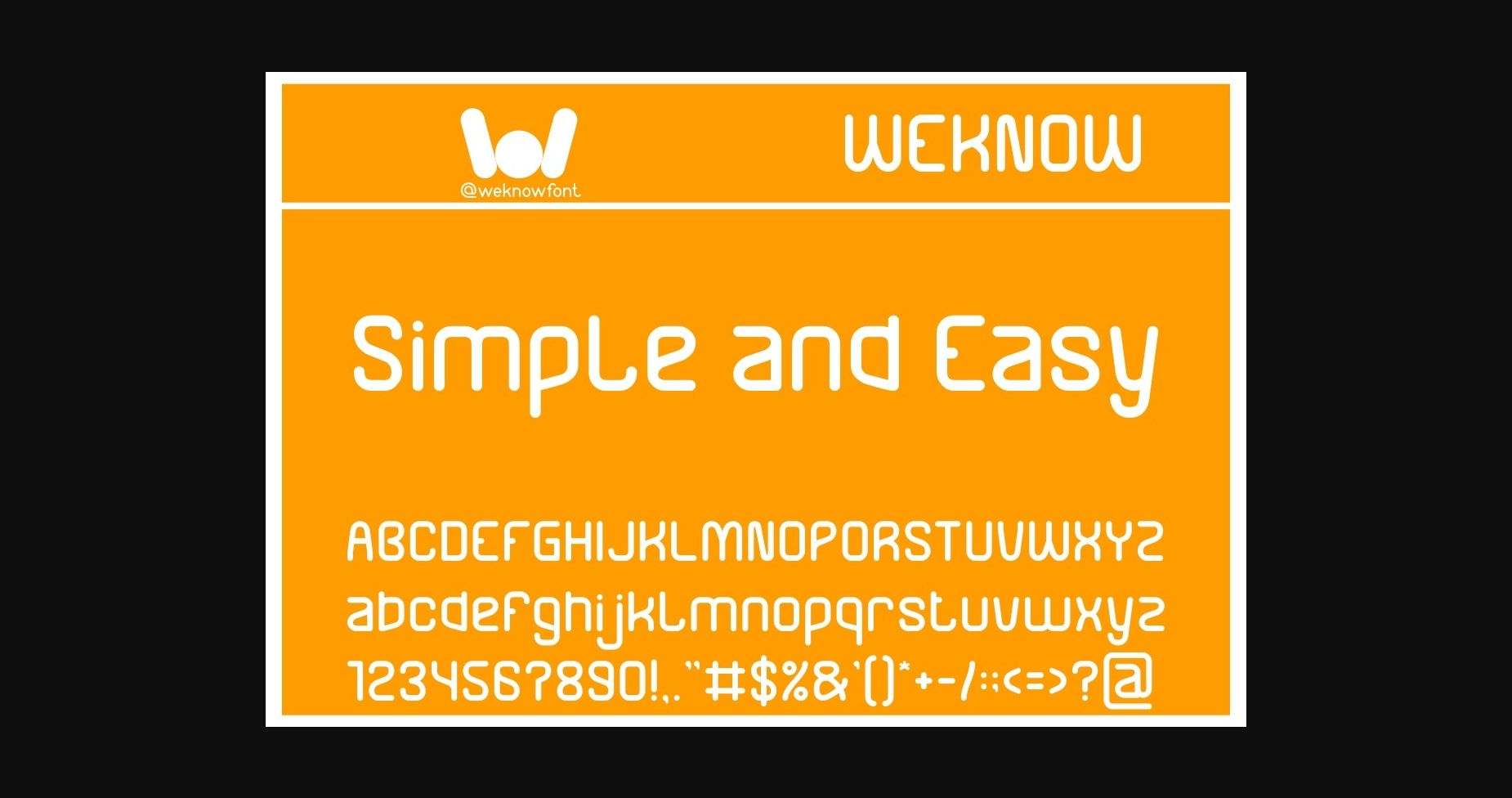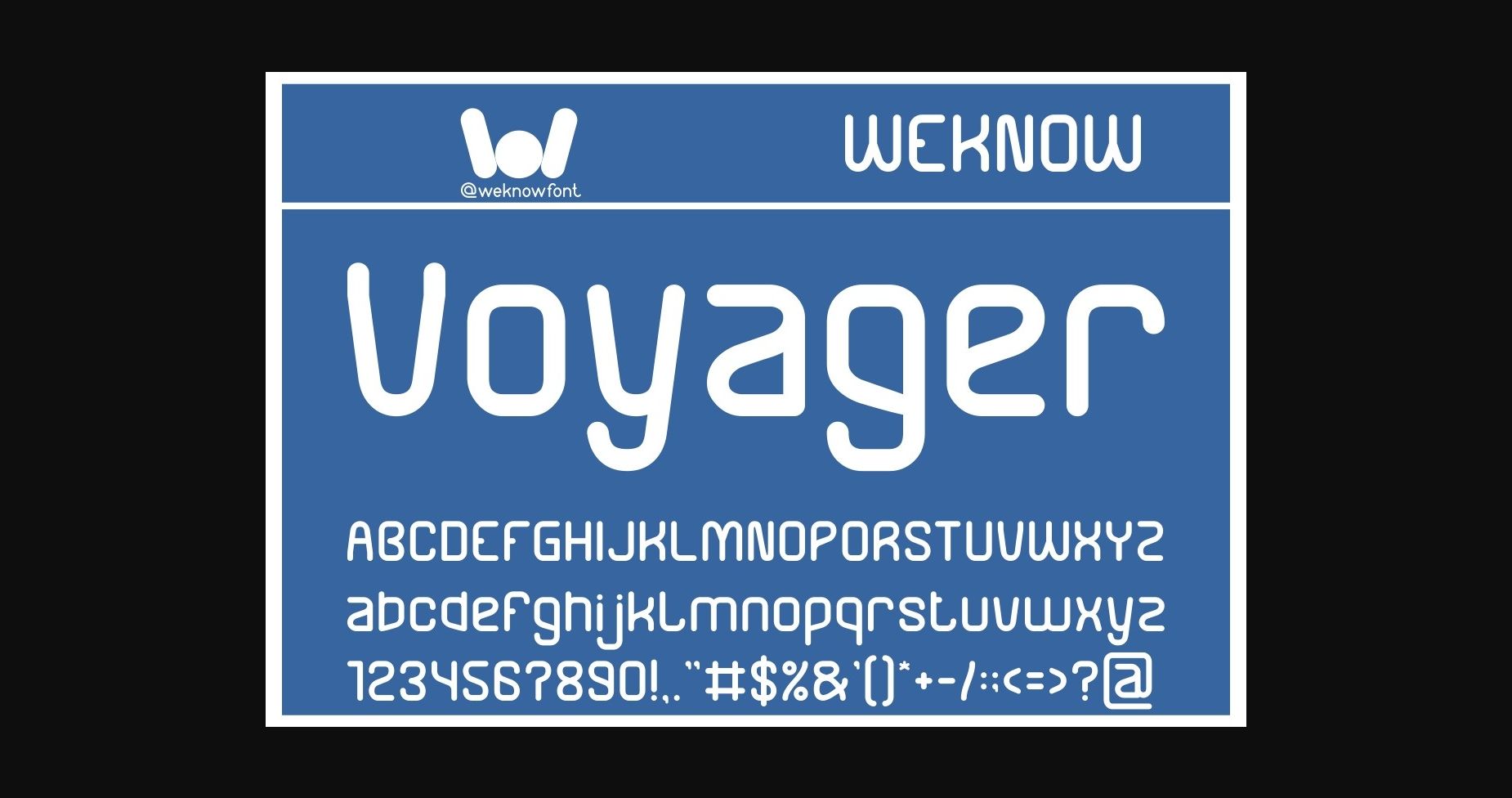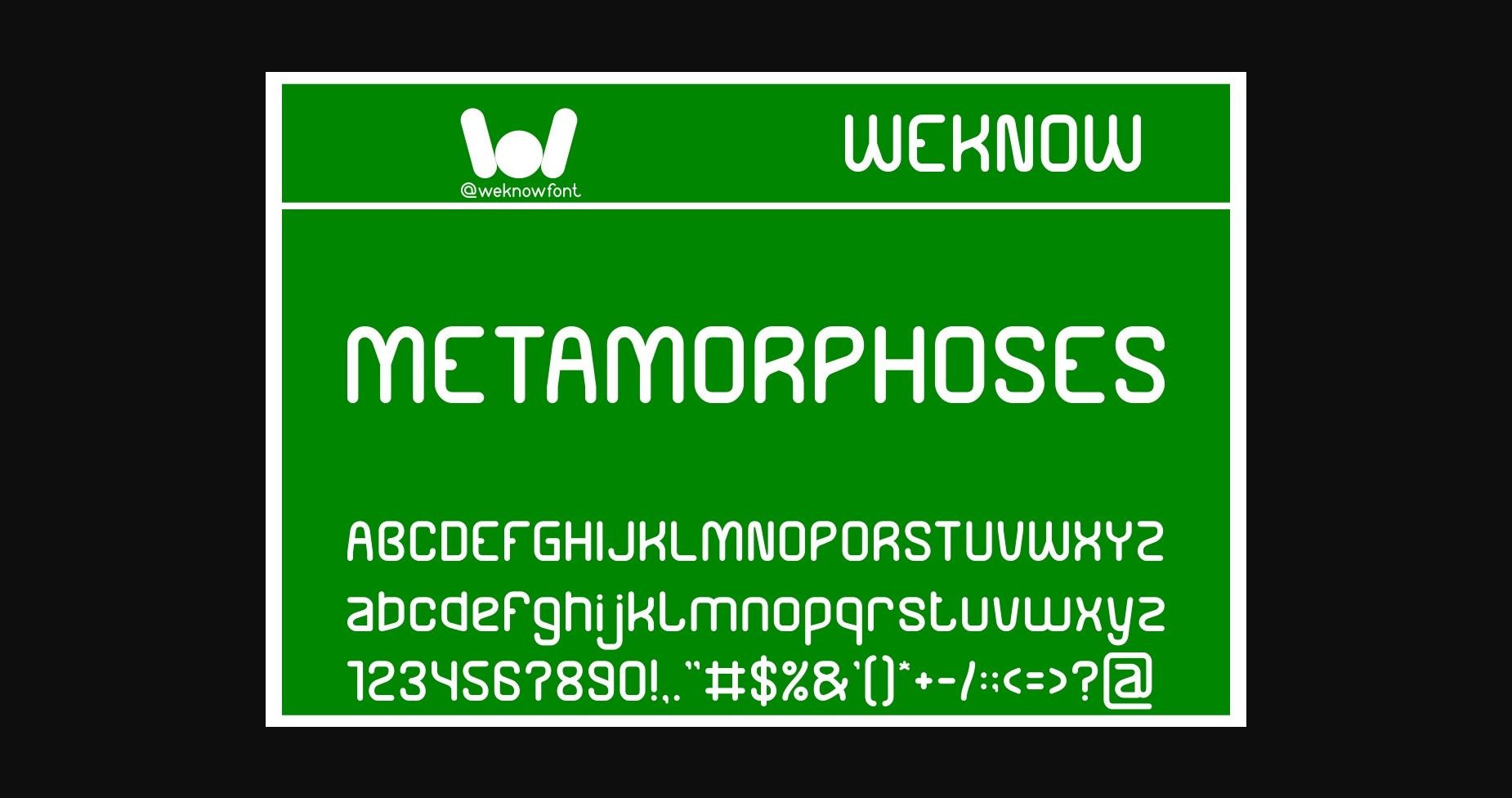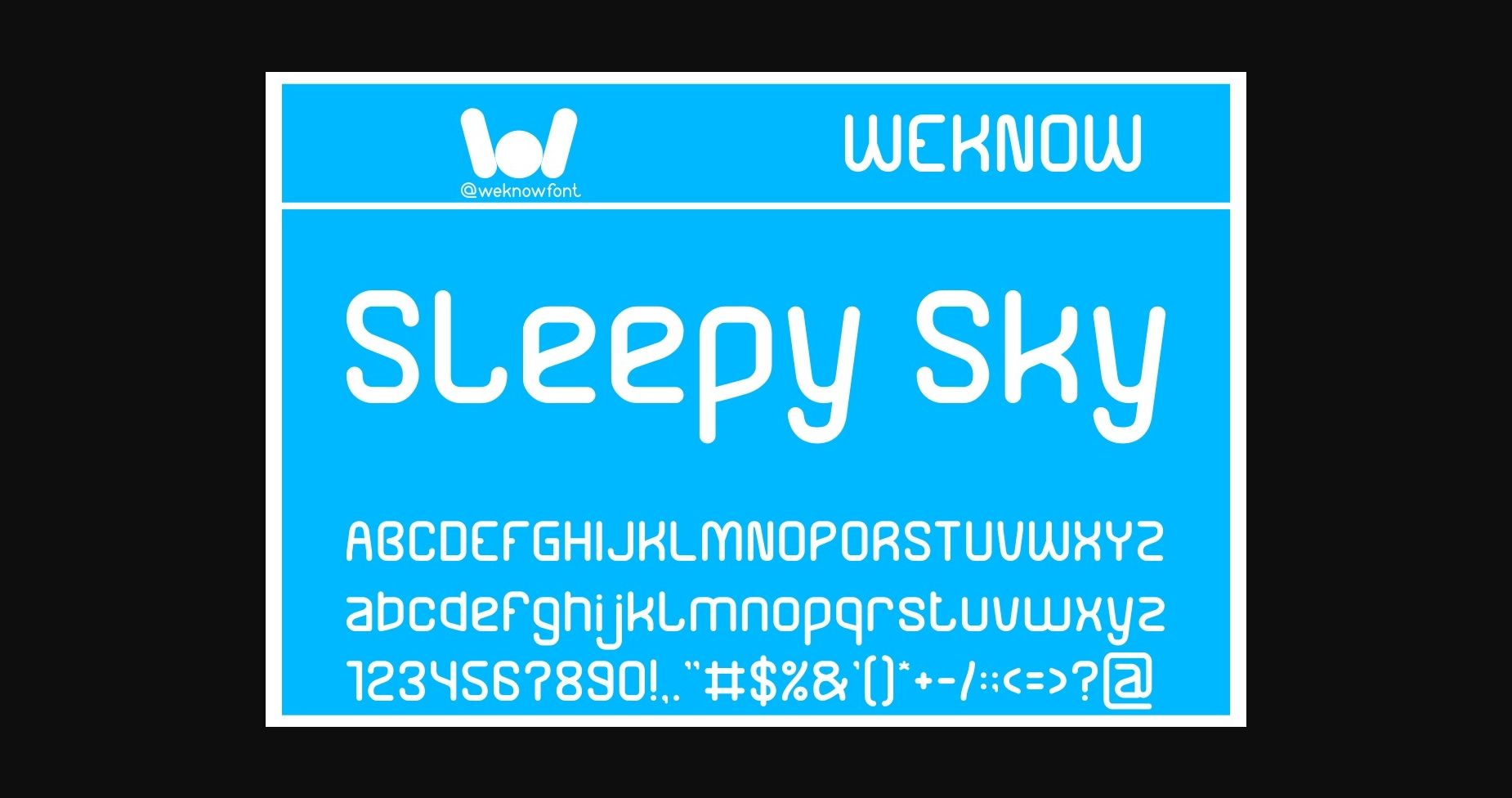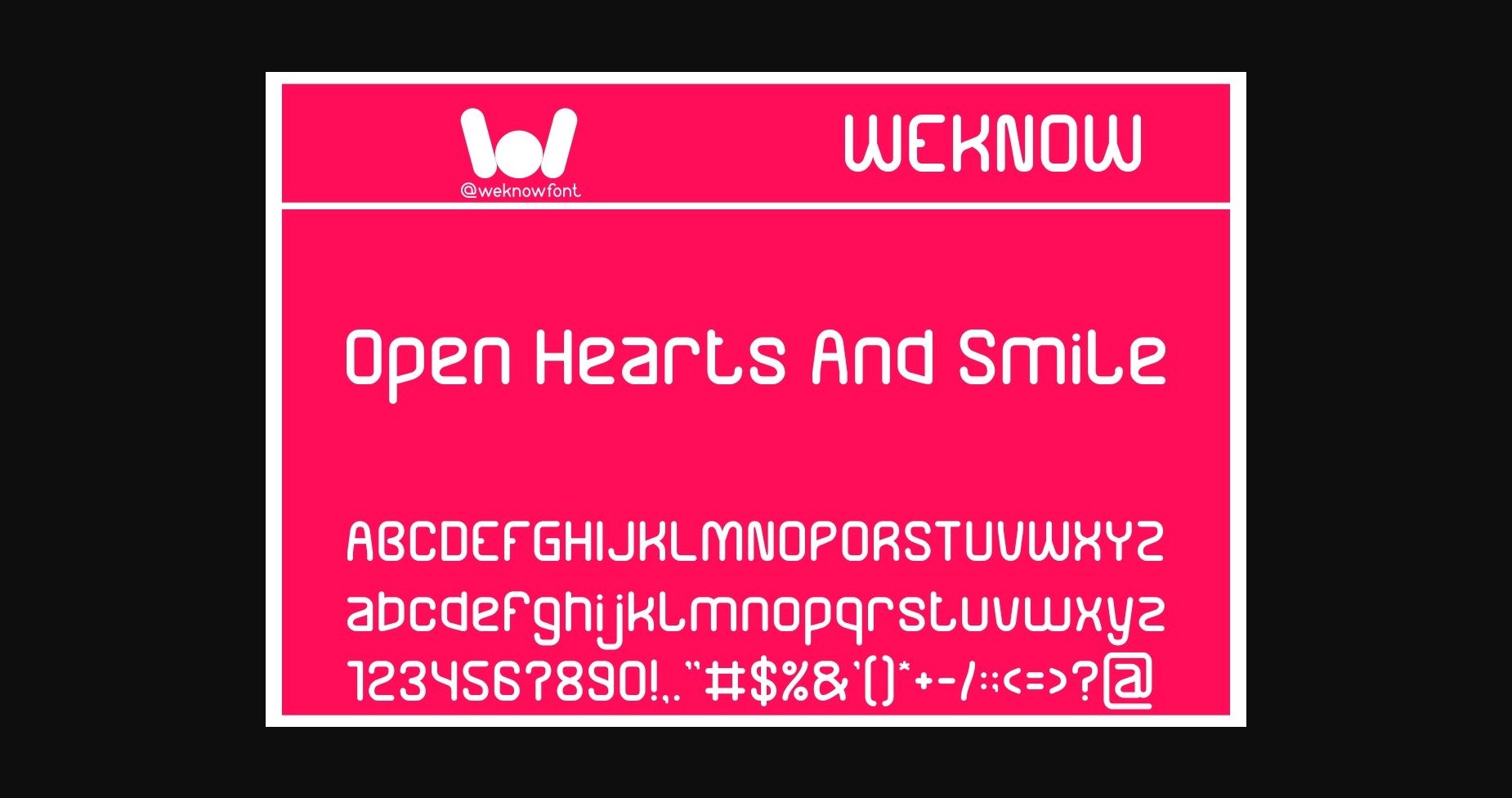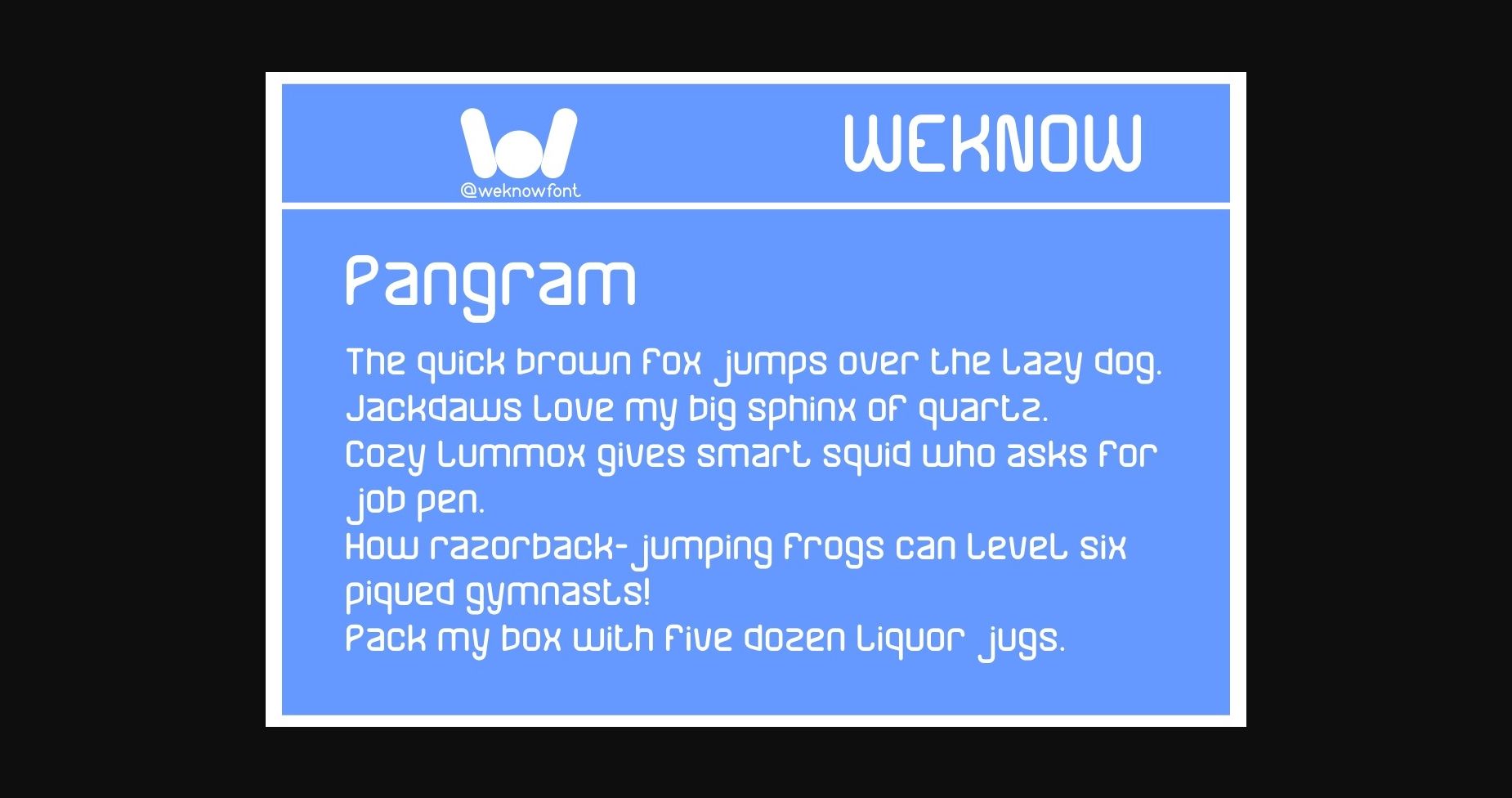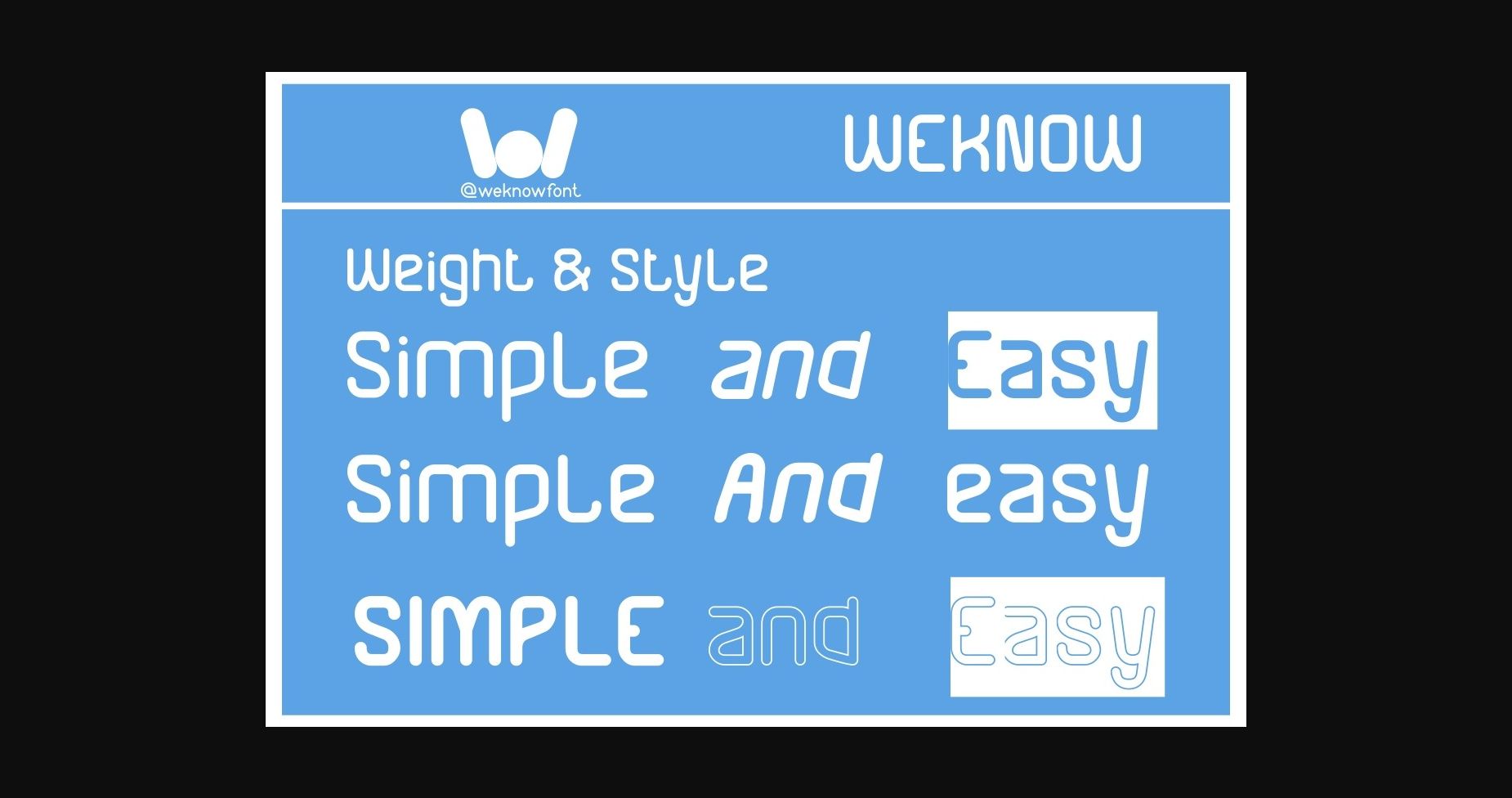
Simple and Easy Font
About Simple and Easy Font
Simple and Easy is a basic sans serif display font suitable for a logo, logotype, headline, corporate identity, brand identity, apparel industry, poster, music, movie, game, magazine, book, comic, cartoon, YouTube, Instagram, website, or any of your creative design projects.